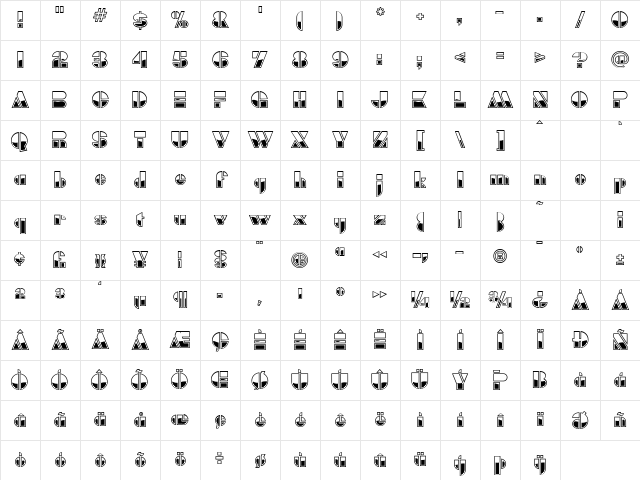
Bumper Regular
Design Context for Bumper
Bumper is a composed and adaptable typeface that performs quietly and consistently across a wide range of design contexts.